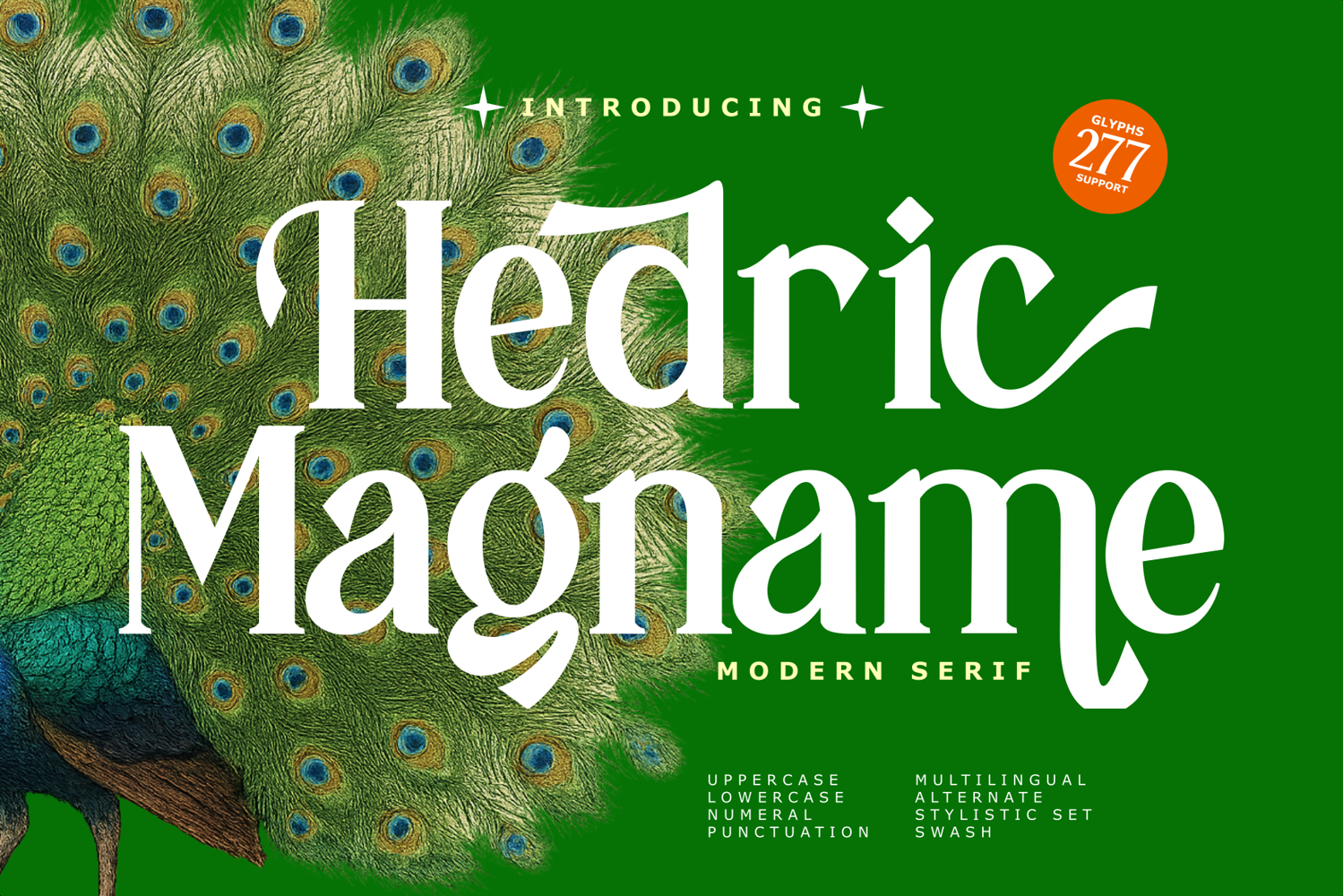
Hedric Magname - Modern Display Serif
Introducing Hedric Magname a captivating modern serif typeface that blends classic elegance with a distinct contemporary flair. Designed for luxury, high-end branding, and eye-catching editorial design, Hedric Magname demands attention with its dramatic curves and sophisticated style.
FONT FEATURES
• Additional Accents
• 66 Languages
• Kerning
• Alternates